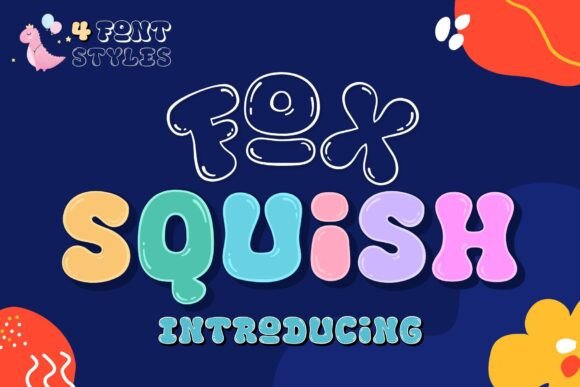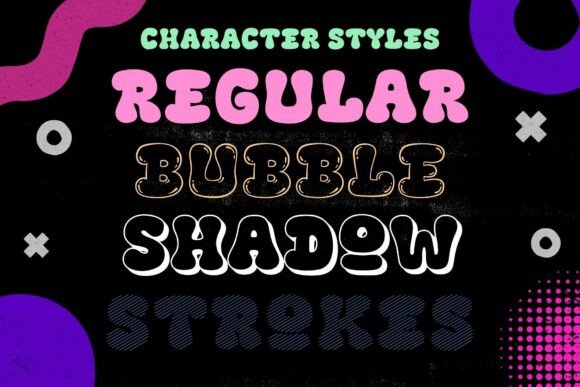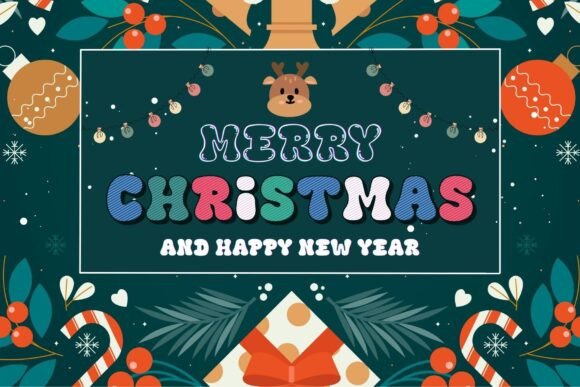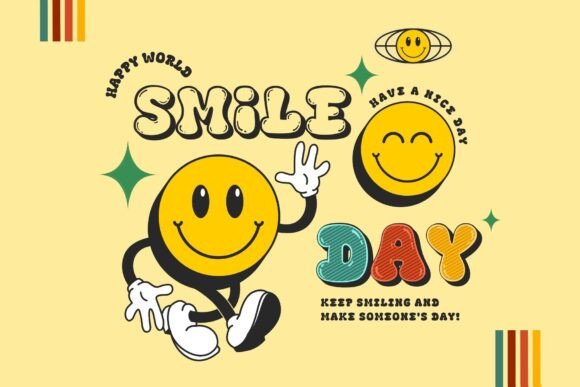
Fox Squish Font: A Bubbly & Cute Display Font for Playful Designs
About the Fox Squish Font
Discover the charm of Fox Squish Font. This font is a perfect blend of modern aesthetics and classic appeal. Say hello to Fox Squish, a super fun and bubbly display font family that brings joy and bounce to your creative projects! Perfectly crafted for playful branding, kids’ designs, packaging, greeting cards, social media graphics, and more!
Fox Squish excels in headlines, short bursts of text within logos, and playful packaging designs. Its bouncy nature makes it ideal for children’s products, bright and cheerful branding, and eye-catching social media posts. However, its less legible forms make it unsuitable for body copy or UI elements requiring extended readability.
Consider pairing Fox Squish with a clean sans-serif like Open Sans for a balanced contrast, or a classic serif such as Garamond for a more sophisticated feel. For a more playful combination, explore pairing it with a rounded geometric sans-serif.
Fox Squish projects a friendly, energetic, and undeniably youthful personality. Its rounded forms and bouncy letterforms communicate a sense of fun and approachability, making it perfect for brands targeting a younger demographic or aiming for a lighthearted brand identity.
Fox Squish Font Usage Examples
Fox Squish Font Example